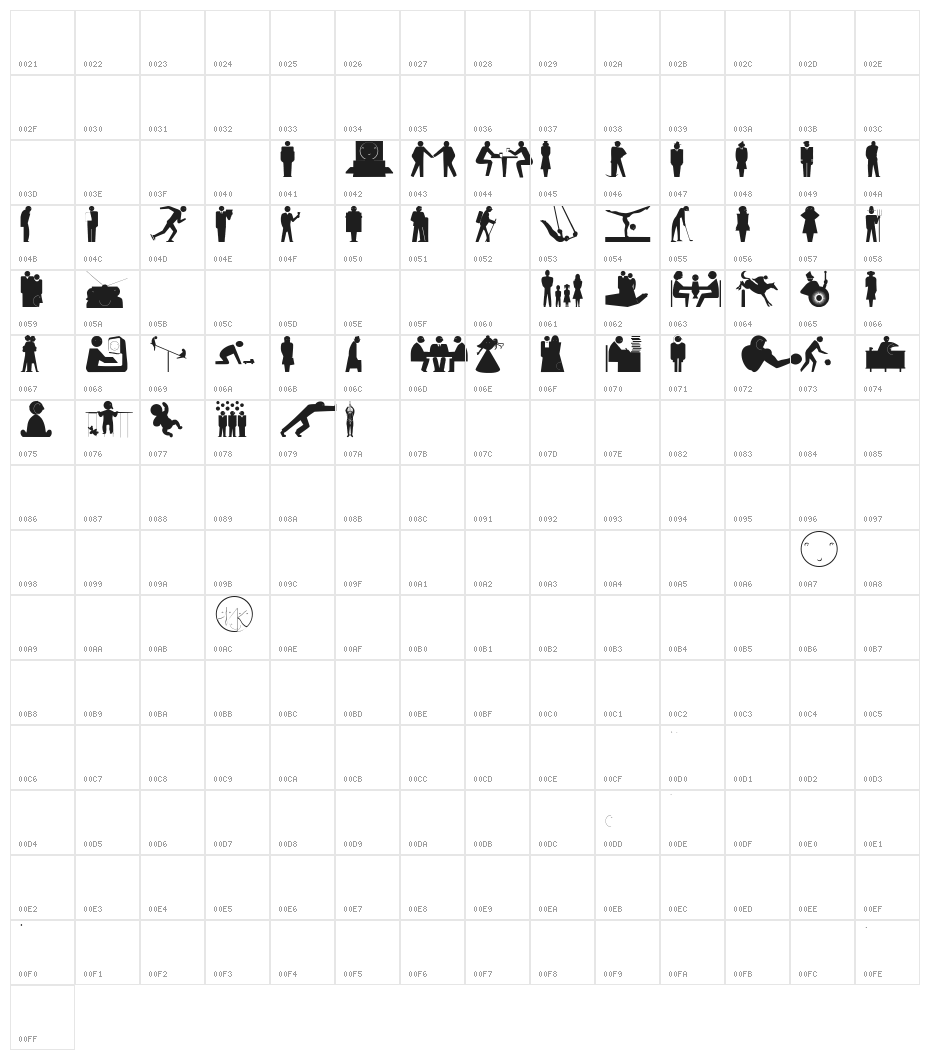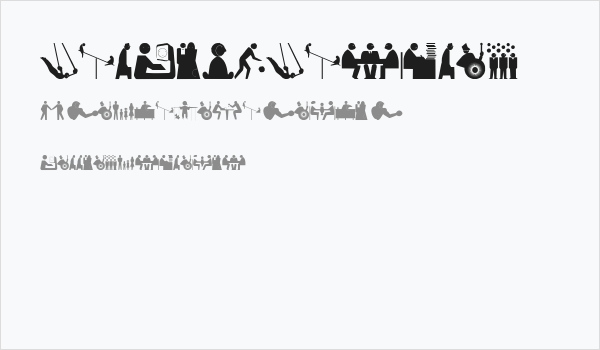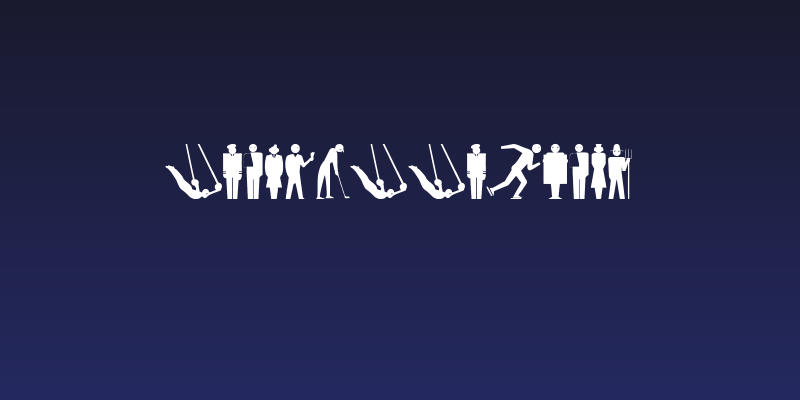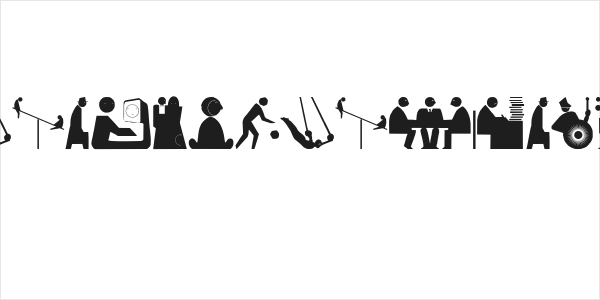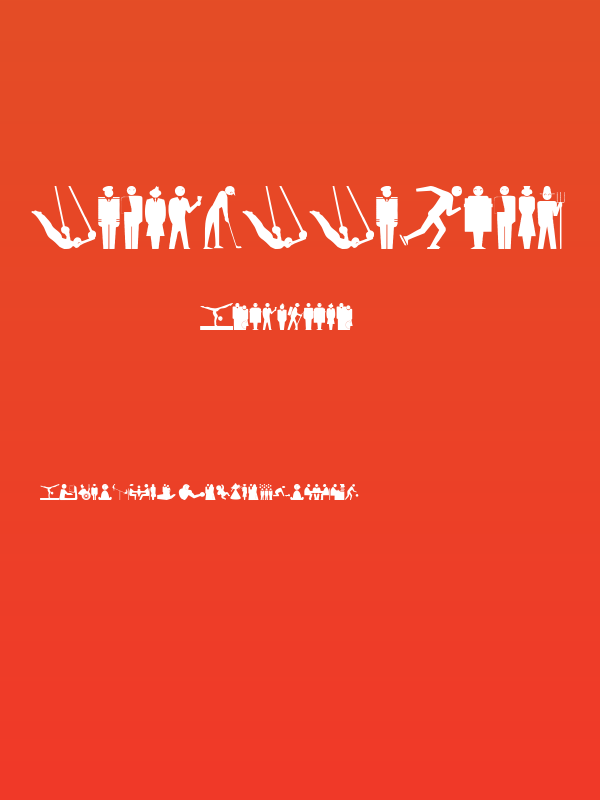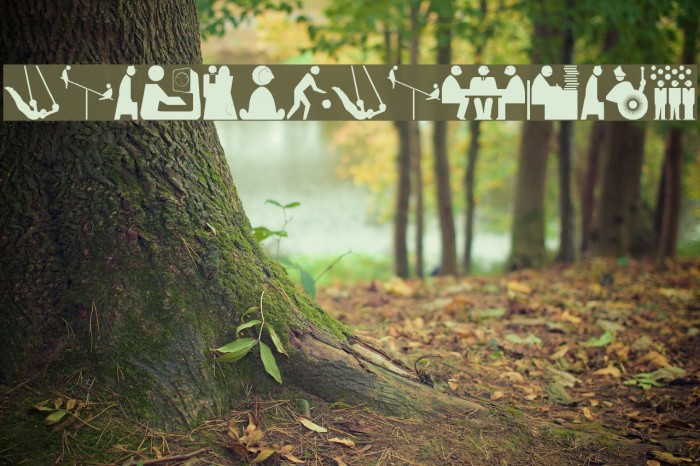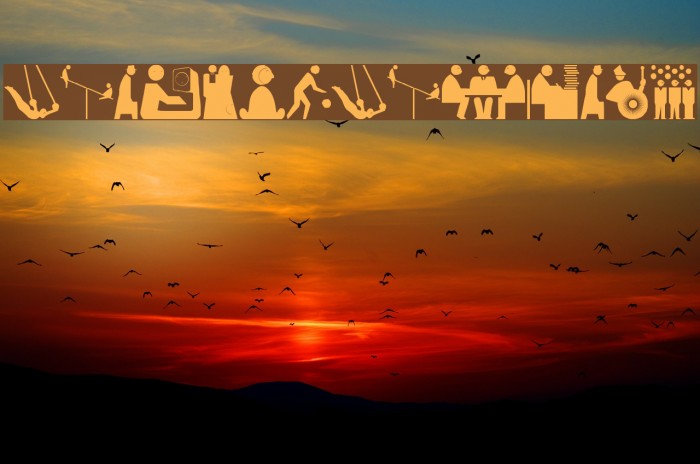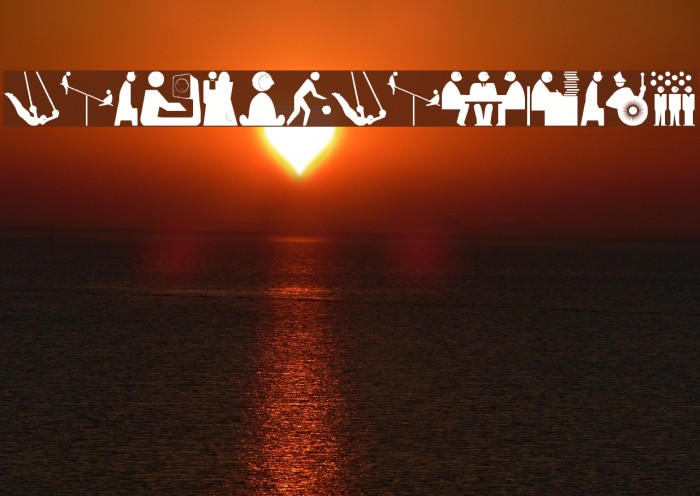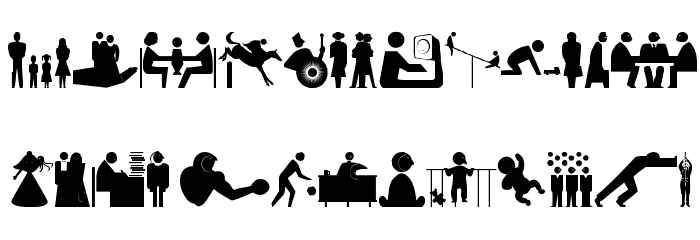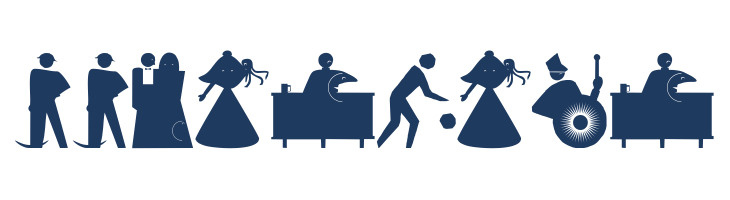
SilhousSimplex Font
SilhousSimplex Description
A pictogram-style dingbat set featuring simplified human silhouettes engaged in various activities, with bold, solid black shapes and minimal detail for easy recognition and visual impact.
| Overall Style | Modern, Minimalist, Informative |
| Use Case | Icons, Infographics, Signage, Visual aids |
| Proposed Projects | Infographics, signage, instructional materials, educational posters, wayfinding systems, presentations. |